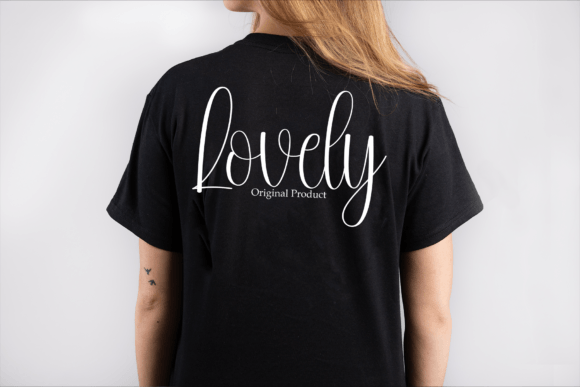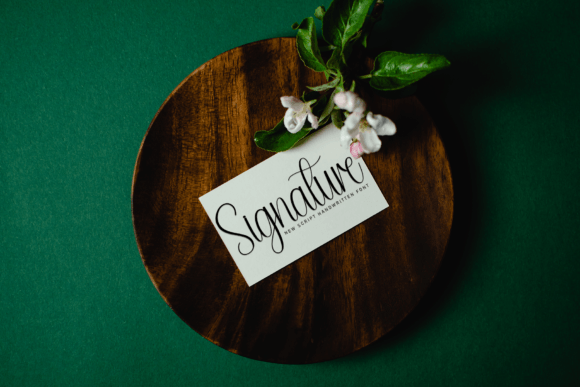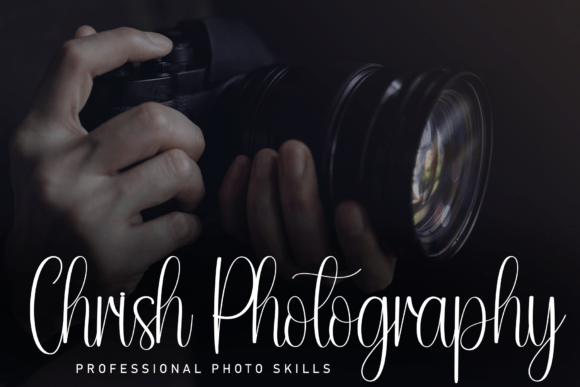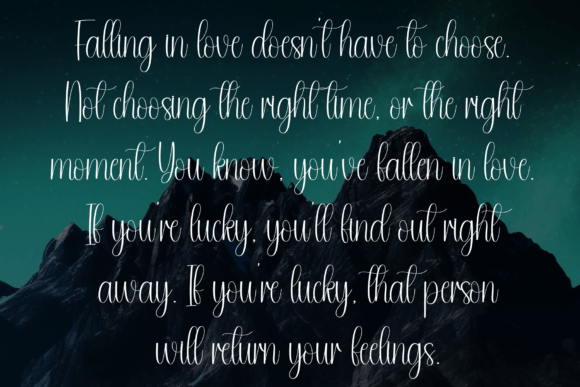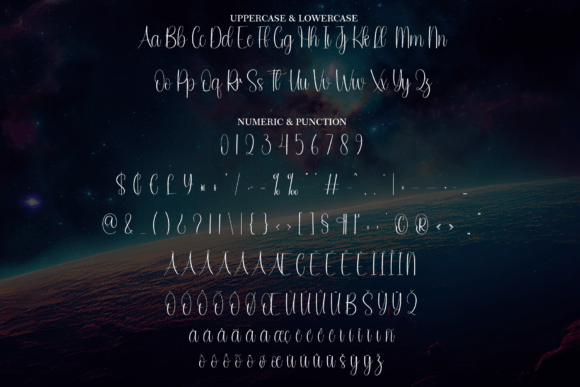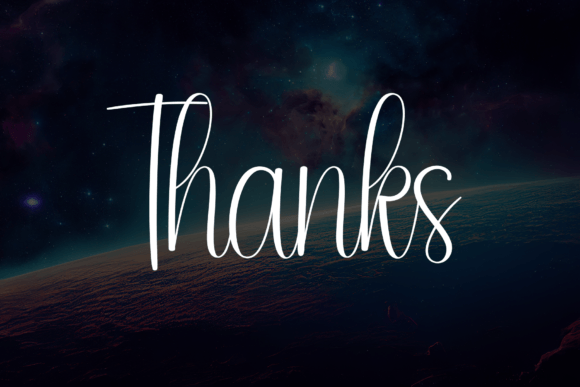
Introducing Calestial Font: The Sweet and Friendly Handwritten Font for Your Design Needs
Are you looking for a font that can add a touch of sweetness and friendliness to your designs? Look no further than Calestial Font! This beautiful handwritten font is perfect for creating wedding invitations, cards, and other designs that require a lovely and personal touch. In this article, we’ll take a closer look at Calestial Font, its features, and how you can use it to elevate your designs.
What is Calestial Font?
Calestial is a sweet and friendly handwritten font that is designed to bring a touch of warmth and personality to your designs. With its flowing and cursive strokes, Calestial Font is perfect for creating beautiful and eye-catching text that will capture the attention of your audience. Whether you’re designing a wedding invitation, a greeting card, or a social media post, Calestial Font is the perfect choice.
Key Features of Calestial Font
So, what makes Calestial Font so special? Here are some of its key features:
- Handwritten style: Calestial Font has a beautiful handwritten style that gives it a personal and unique touch.
- Sweet and friendly: The font has a sweet and friendly tone that makes it perfect for designs that require a personal touch.
- Cute and fun: Calestial Font is a cute and fun font that can add a playful touch to your designs.
- Easy to read: Despite its handwritten style, Calestial Font is easy to read and understand, making it perfect for body text and headings.
Use Cases for Calestial Font
So, how can you use Calestial Font in your designs? Here are some use cases to get you started:
- Wedding invitations: Calestial Font is perfect for creating beautiful and elegant wedding invitations that will set the tone for the big day.
- Greeting cards: The font is also great for creating greeting cards for special occasions such as birthdays, anniversaries, and holidays.
- Social media posts: Calestial Font can add a personal touch to your social media posts, making them more engaging and eye-catching.
- Branding and packaging: The font can also be used for branding and packaging designs that require a personal and unique touch.
Tips for Using Calestial Font
Here are some tips for using Calestial Font in your designs:
- Pair it with other fonts: Calestial Font can be paired with other fonts to create a unique and interesting contrast.
- Use it for headings and titles: The font is perfect for headings and titles, but can also be used for body text.
- Experiment with colors: Calestial Font looks great in a variety of colors, so don’t be afraid to experiment and find the perfect color for your design.
In conclusion, Calestial Font is a beautiful and versatile handwritten font that can add a touch of sweetness and friendliness to your designs. With its flowing and cursive strokes, Calestial Font is perfect for creating beautiful and eye-catching text that will capture the attention of your audience. Whether you’re designing a wedding invitation, a greeting card, or a social media post, Calestial Font is the perfect choice.